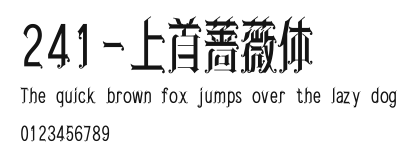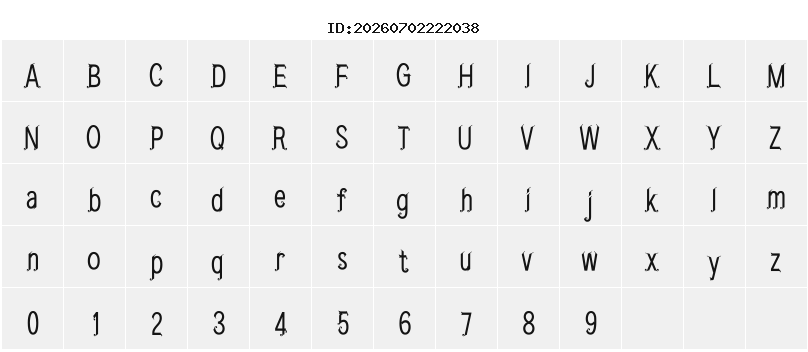
241-上首蔷薇体 Preview
• Font Name: 241-上首蔷薇体
• Font ID: 241-SSQiangWeiTi:Version 6.00
• Full Font Name: 241-上首蔷薇体
• Version: Version 6.00 April 21, 2023
• PostScript Name: 241-SSQiangWeiTi
• Character Count: 7569
• Manufacturer: 上首造字
About 241-上首蔷薇体.ttf
241-上首蔷薇体.ttf is a modern, elegant sans-serif font designed for ultimate readability and visual harmony. Perfect for branding, headlines, web design, and print materials.